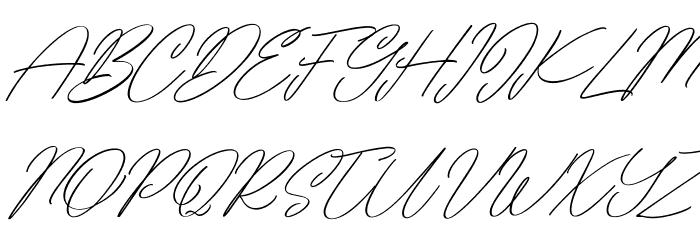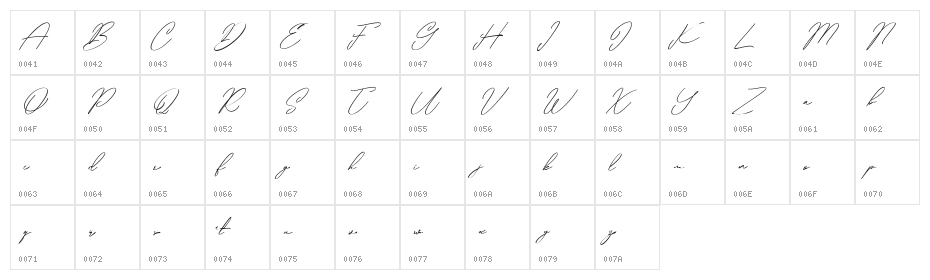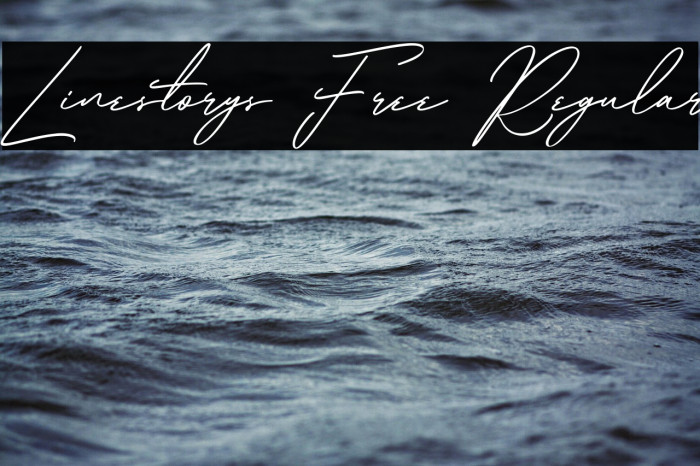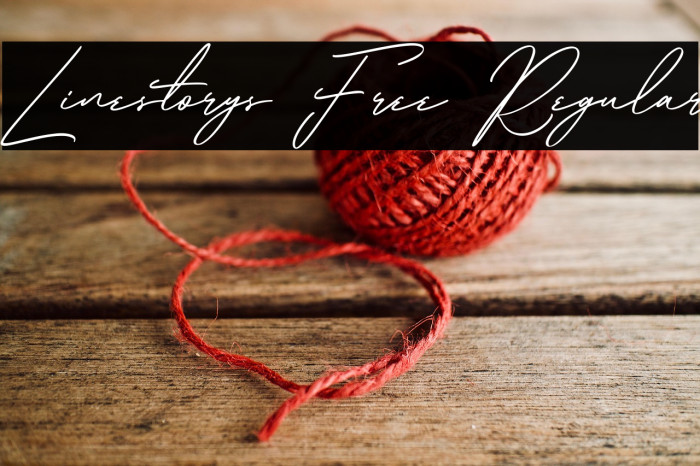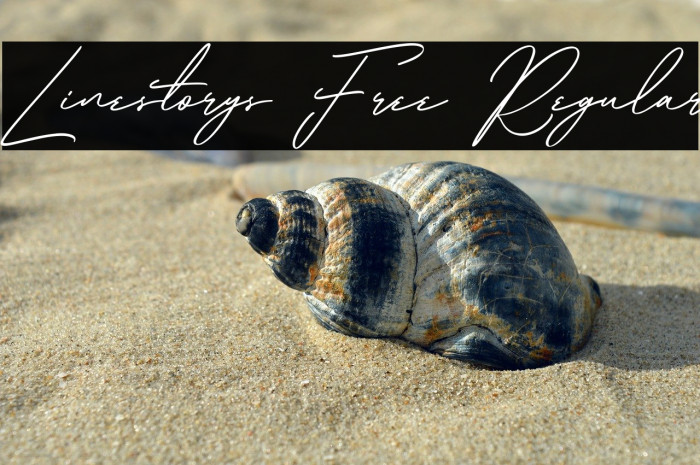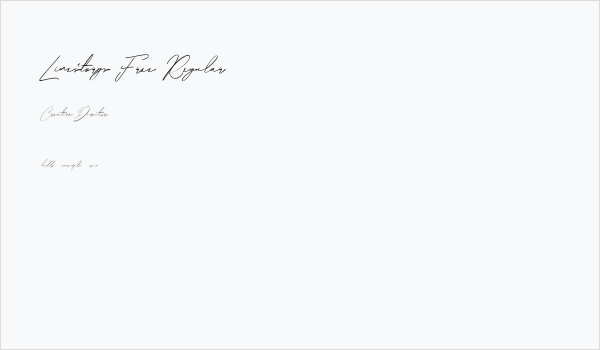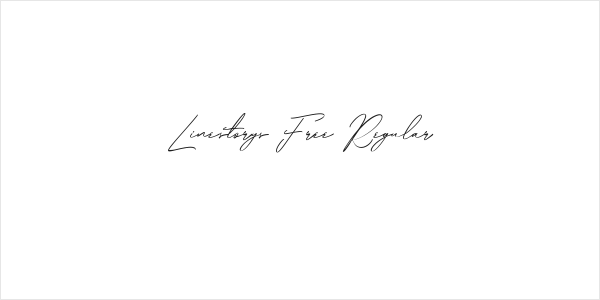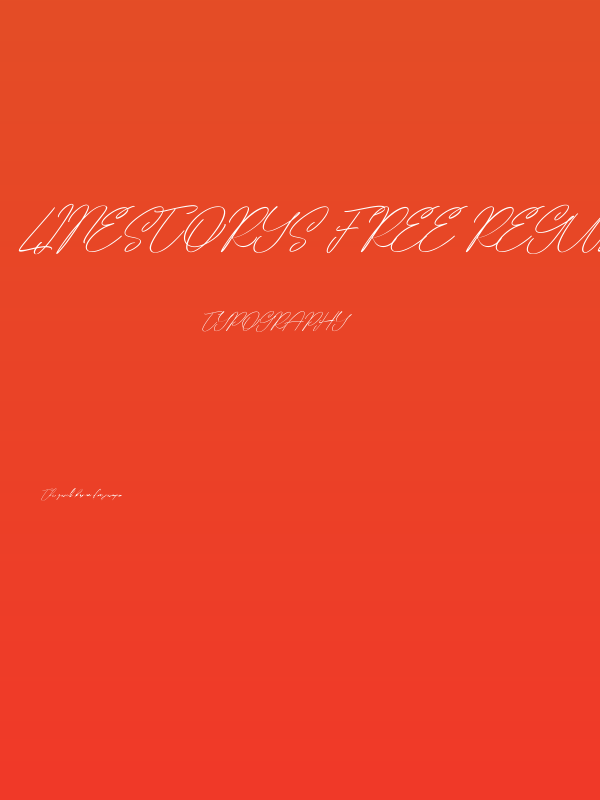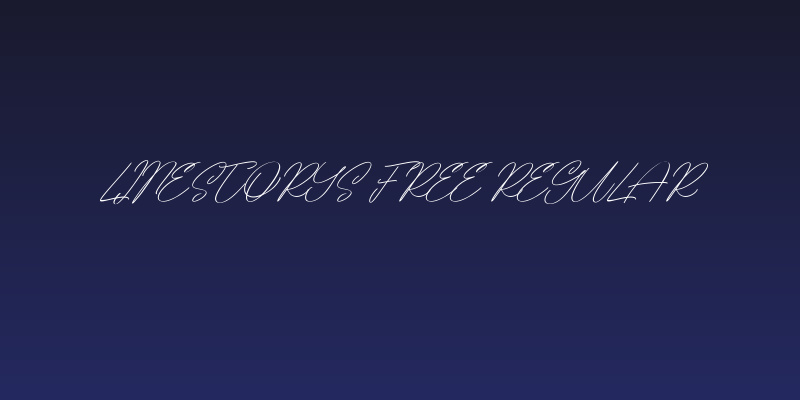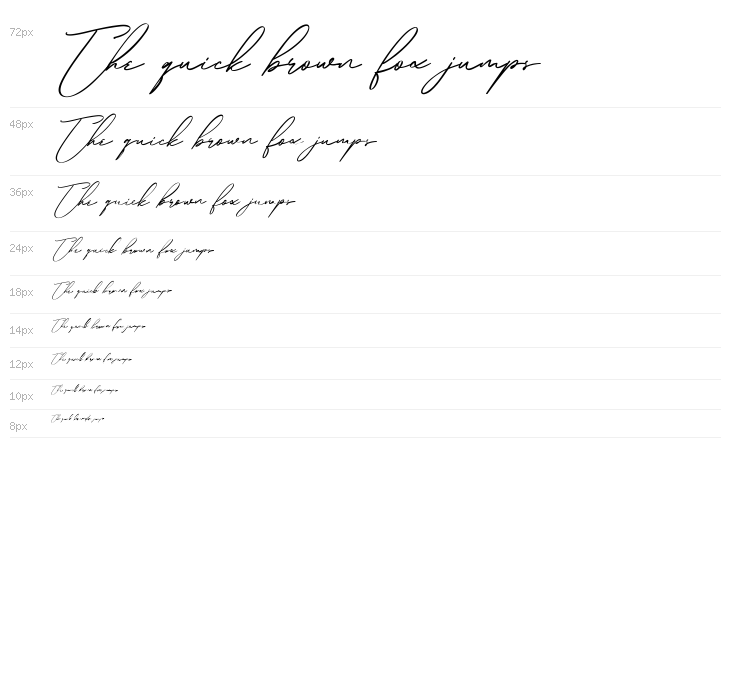
Linestorys Free Regular Font
Linestorys Free Regular Description
This elegant script font features a flowing, cursive style with a modern touch. The characters are interconnected, creating a seamless and fluid appearance. The uppercase letters are tall and slender, with graceful loops and swashes that add a touch of sophistication. The lowercase letters maintain a consistent flow, with smooth curves and delicate lines. The font's thin strokes and high contrast give it a refined and airy look, making it suitable for elegant and formal designs. Its overall style is both classic and contemporary, making it versatile for various applications.
| Overall Style | Elegant, Modern |
| Use Case | Logos, Invitations, Headlines |
| Proposed Projects | Ideal for wedding invitations, elegant branding, personal signatures, and upscale packaging. |